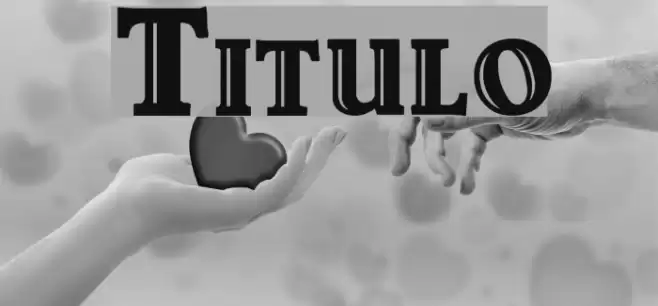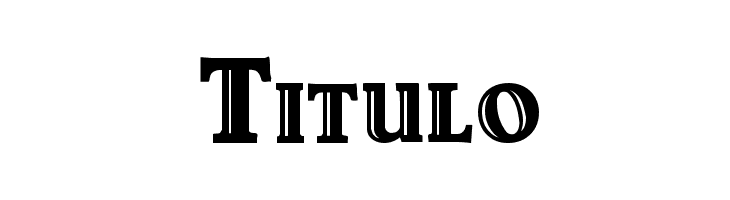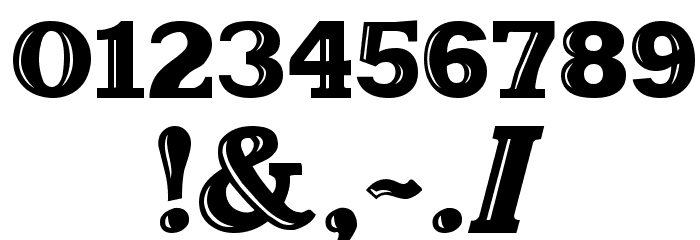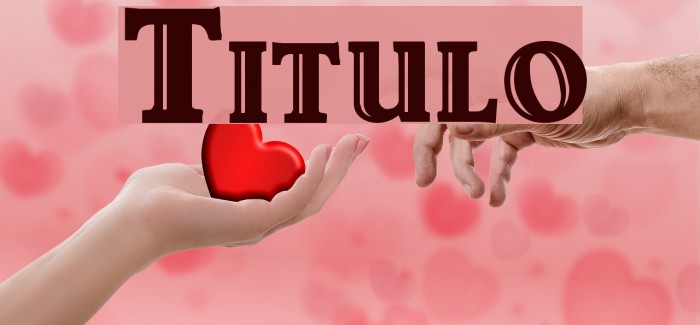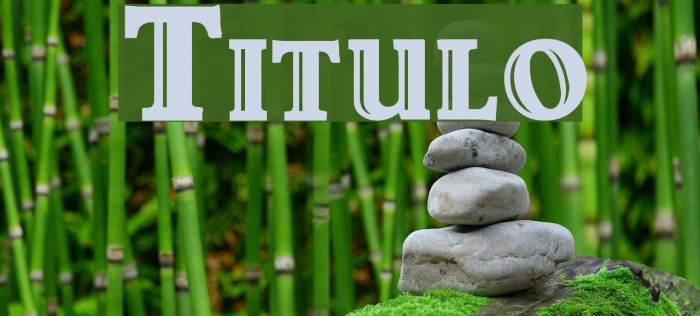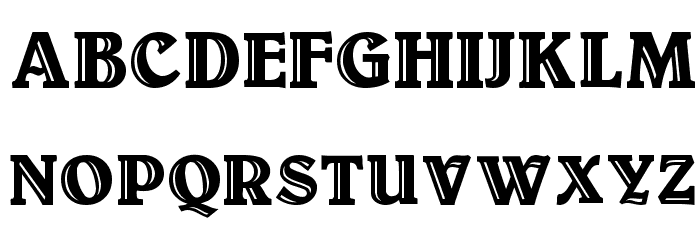
Titulo Font
Titulo Description
This font features bold, dramatic serifs with a strong presence, making it ideal for attention-grabbing headlines and titles. The characters are designed with a high contrast between thick and thin strokes, giving them a dynamic and impactful appearance. The uppercase letters are particularly striking, with sharp angles and pronounced serifs that add to the font's commanding style. The numbers and special characters maintain this bold aesthetic, ensuring consistency across all text elements. The font's overall design is reminiscent of classic serif styles but with a modern twist, making it versatile for various design projects.
A bold, high-contrast serif font ideal for impactful headlines from Retro fonts.
- Proposed Projects: This font is perfect for use in branding, advertising, posters, and editorial design where a strong visual impact is required.